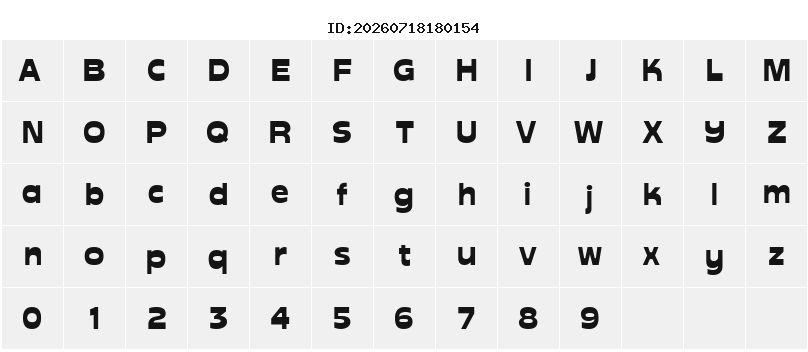
• Font Name: Cuckoo
Cuckoo.ttf is a modern, elegant sans-serif font designed for ultimate readability and visual harmony. Perfect for branding, headlines, web design, and print materials.